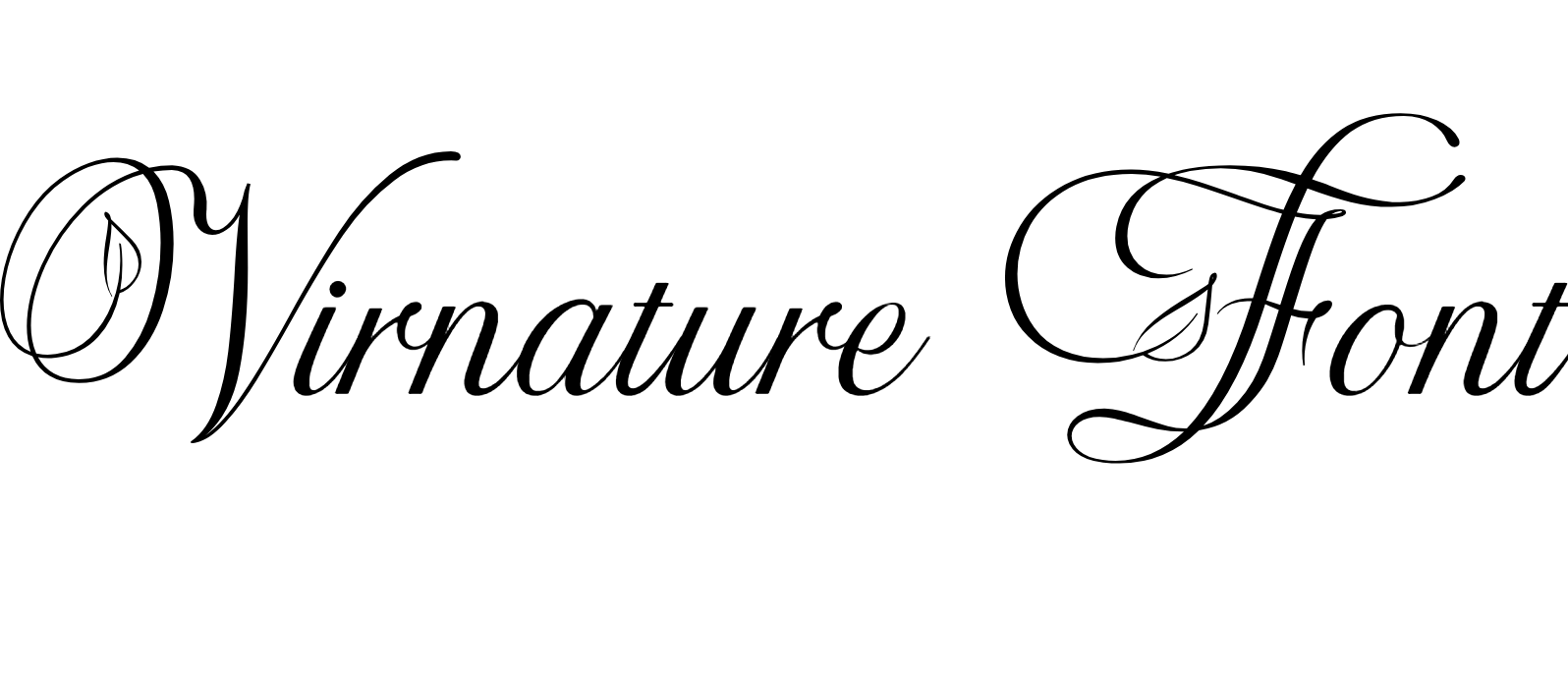
Virnature
Virnature is a calligraphy font designed by Dwi Putra Yoga and published by Alitdesign (2023). The letters have the smooth movement of real pen lettering, which is why even a single name looks special in it. You can download it for free and test it with your own words in the preview above.
- OpenType features: Ligatures (including optional ones)
What You Can Type With Virnature
With complete upper and lowercase letters and all ten digits, Virnature is ready for real wording, not just a single headline. Everyday marks like &, !, ? and @ are there too. It has 1 accented letters, but not the full set for Spanish or French, so test any non-English words first.
Where Virnature Works Best
Think of Virnature for wedding invitations, certificates and elegant quotes. Script fonts read best in short bursts, so keep it to names, titles and one-line quotes. Skip all caps: script capitals are drawn to start a word, not to fill one.